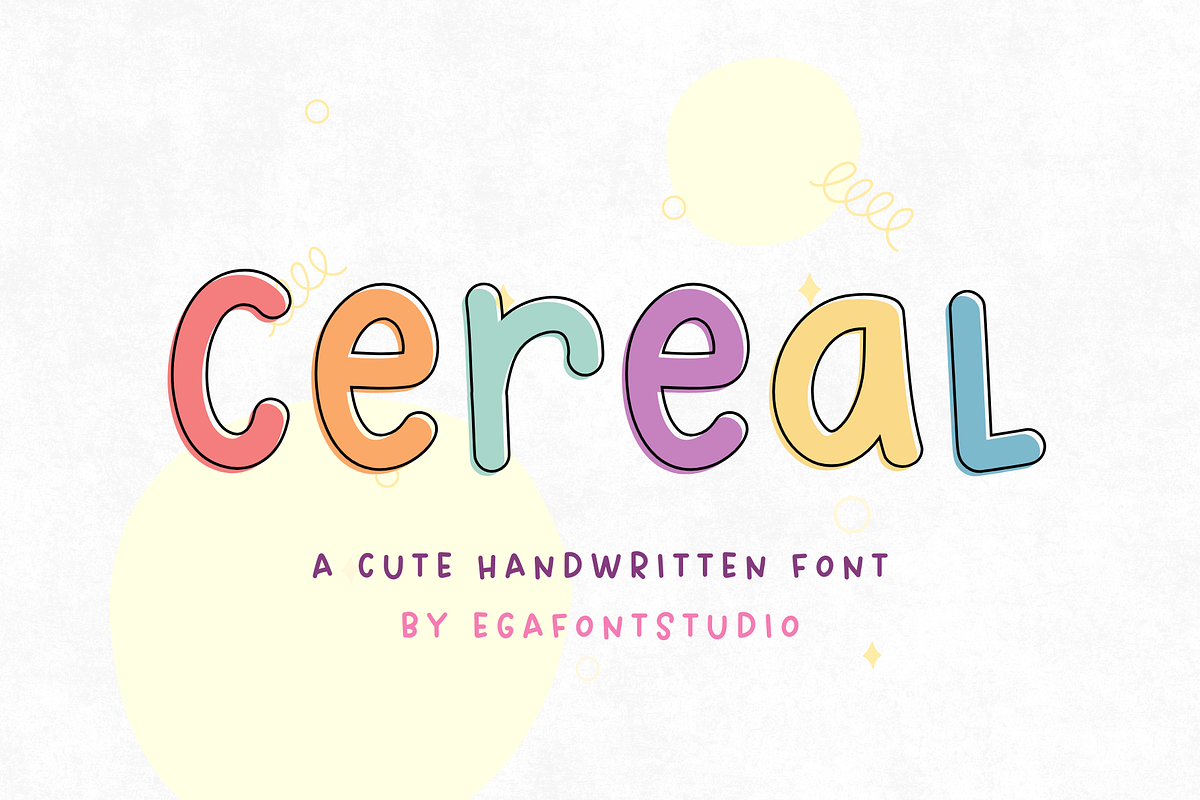
Cereal | Cute Handwritten Font Free Download
Playful, sweet, and full of personality, Cereal | Cute Handwritten Font Free Download is a charming typeface that brings a fun and friendly vibe to your designs. Perfect for kids’ projects, product packaging, social media graphics, greeting cards, and creative branding, this font captures the joy and simplicity of handwritten lettering.
With its rounded strokes, casual flow, and soft edges, Cereal is easy to read while still feeling unique and lively. It’s an excellent choice for anyone looking to add warmth and character to their typography.